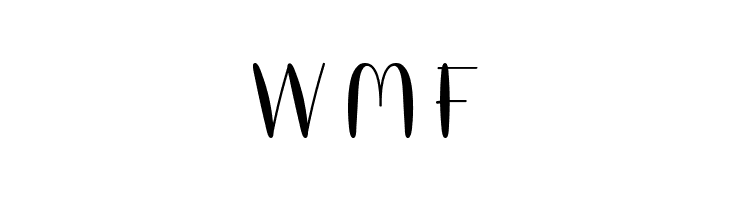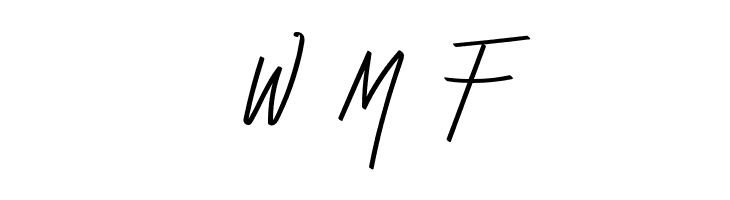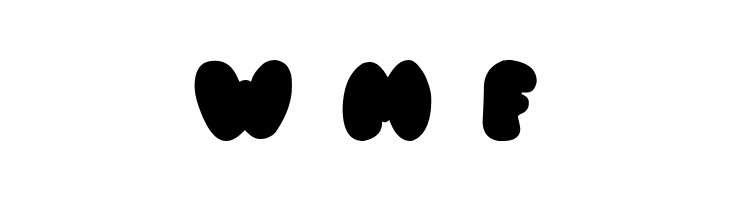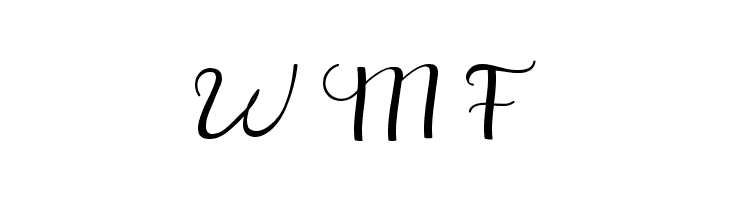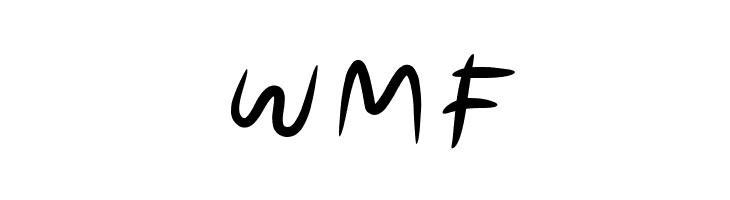
A bold, geometric outline font with a modern, industrial style.
A bold, italicized outline font with a modern, geometric style.
A bold, geometric font with a military-inspired, stencil-like design.
A playful, rounded font with a friendly and approachable style.
A decorative icon font with bold, playful silhouettes representing diverse objects and activities.
A playful, handwritten-style font with smooth, rounded strokes.
A decorative icon font with feminine and playful motifs.
A modern, keyboard-inspired font with characters enclosed in keycap-like boxes.
A playful, handwritten font with smooth, flowing strokes and a casual style.
A modern, geometric sans-serif font with clean lines and balanced spacing.
A bold, playful handwritten font with dynamic curves and a friendly style.
A playful, modern font with rounded, slightly condensed characters.
Casual handwritten sans-serif with tall, narrow characters.
A bold, decorative font with shamrock motifs, perfect for festive themes.
A playful and elegant handwritten script font.
A playful, handwritten-style font with smooth curves and a casual appearance.
A bold, outlined font with a strong, impactful design.
A bold, grunge-style font with a cut-out, distressed appearance.
A font of modern skyline silhouettes with a futuristic touch.
A bold, playful font with a double outline and rounded characters.
A bold, rounded geometric font with high visibility.
A playful, handwritten font with medium contrast and dynamic slant.
A bold, distressed font with a vintage, industrial feel.
A bold, distressed font with a ransom-note style and high contrast.
A bold, rounded font with smooth, consistent strokes and a friendly appearance.
A modern sans-serif font with rounded edges and a clean, approachable style.
A modern, rounded font with a clean and friendly appearance.
A modern, ultra-light font with geometric shapes and rounded edges.
A modern, ultra-light, rounded font with a minimalist design.